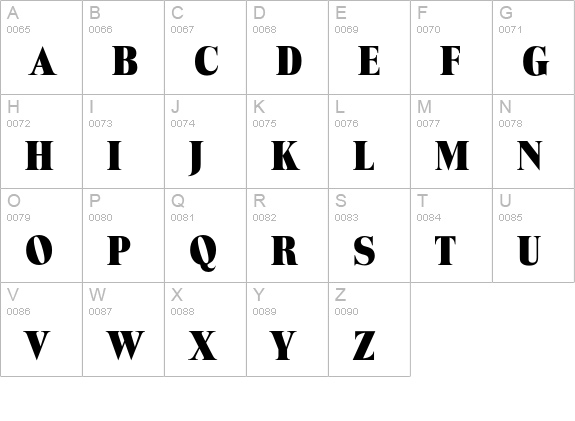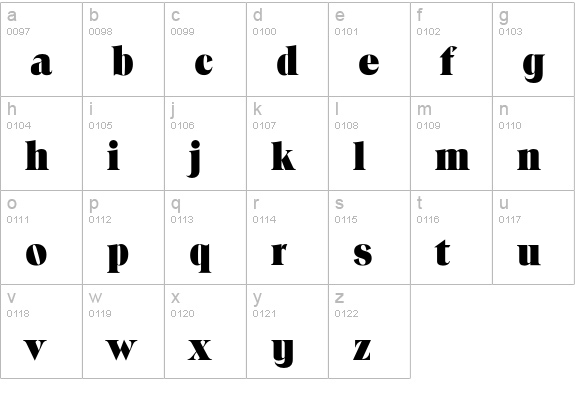
Toledo-ExtraBold is an extra-heavy, attention-grabbing variant in the Toledo typeface family \xE2\x80\x94 well suited to high-impact headlines, posters, and bold branding.
Introducing Toledo-ExtraBold, a font that exudes strength and boldness in every letterform. This remarkable typeface captures attention with its commanding presence and assertive strokes, making it perfect for headlines, logos, and any design that requires a touch of power. Toledo-ExtraBold stands out from the crowd with its distinct and timeless style. Its letters possess a harmonious balance of thick and thin lines, creating a visual impact that demands attention. The consistent weight throughout the font ensures legibility at any size, allowing your message to be conveyed with clarity and confidence. But what truly sets Toledo-ExtraBold apart is the fact that it is available for FREE download at FontsMarket.com. Yes, you read that right – this extraordinary font can be yours without any cost. It's time to elevate your designs without breaking the bank. With Toledo-ExtraBold, you can explore endless possibilities. Whether you want to create striking headlines for a magazine spread, design a powerful logo for your brand, or add a touch of strength to your website, this font has got you covered. Its versatility knows no bounds, making it an essential tool for designers, creatives, and anyone who wants to make a bold statement. So why wait? Embrace the power of Toledo-ExtraBold and unleash your creativity like never before. Download this exceptional font for FREE at FontsMarket.com and let your designs speak volumes with its commanding presence.